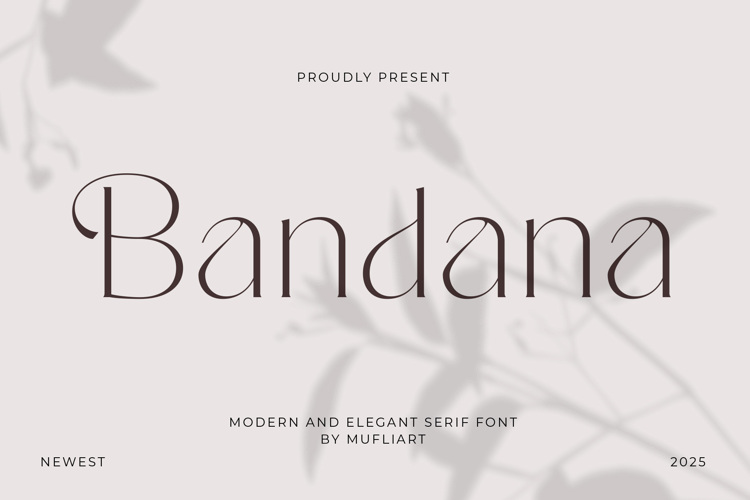
Bandana Font
Bandana Typeface is an elegant, beautiful, and modern serif regular and italic style. With its modern and minimalist look,Bandana brings a luxurious, classy, and clean style to your projects such as websites, modern logos, brand identities, social media quotes, wedding stationery, magazines, and more!
Bandana features capital letters A to Z available in regular and italic styles making Bandana a beautiful font that can be customized for any project and work you want. Bandana is perfect for: logos, branding, wedding invitations, business cards, greeting cards, posters, magazines, social media, agenda prints, and websites.Premium Fonts